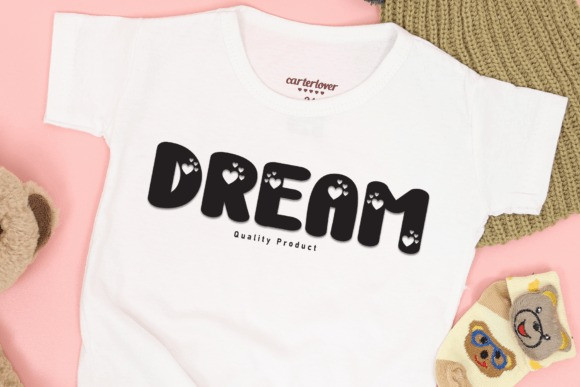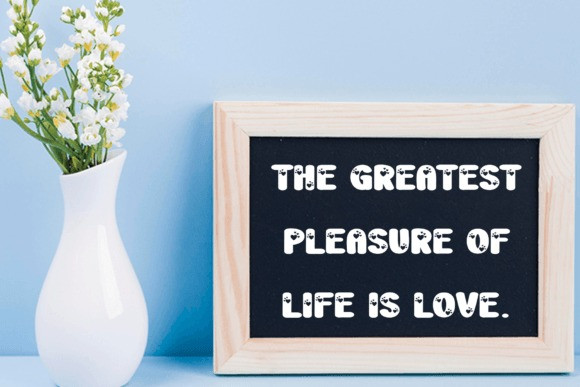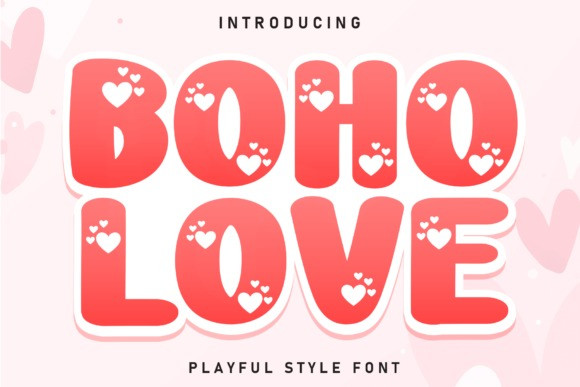
Boho Love Font
Boho Love Font is a unique and interesting display font. A little bit quirky, this font looks incredibly adept on a wide variety of contexts!